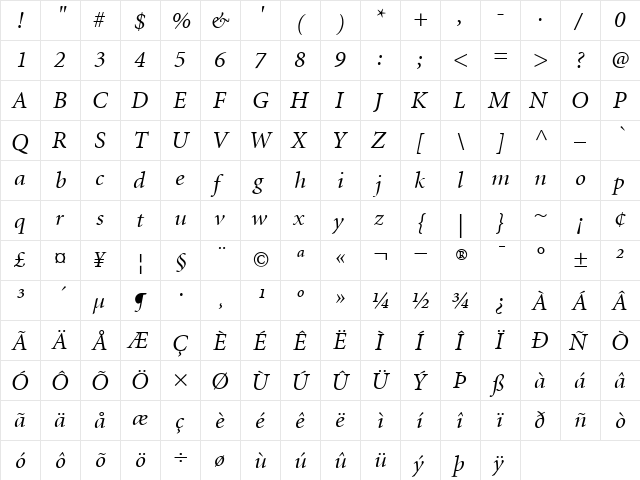
AdobeCorporateIDMinion RomanItalic Font Preview
AdobeCorporateIDMinion RomanItalic
Design Context for AdobeCorporateIDMinion Typeface
AdobeCorporateIDMinion is a composed and adaptable typeface that performs quietly and consistently across a wide range of design contexts. The dynamic lean of this cut emphasises speed and emphasis in any layout.
Pro Tip: Try AdobeCorporateIDMinion for annotation and caption copy alongside an upright companion — the contrast in angle creates a dynamic but ordered typographic system.